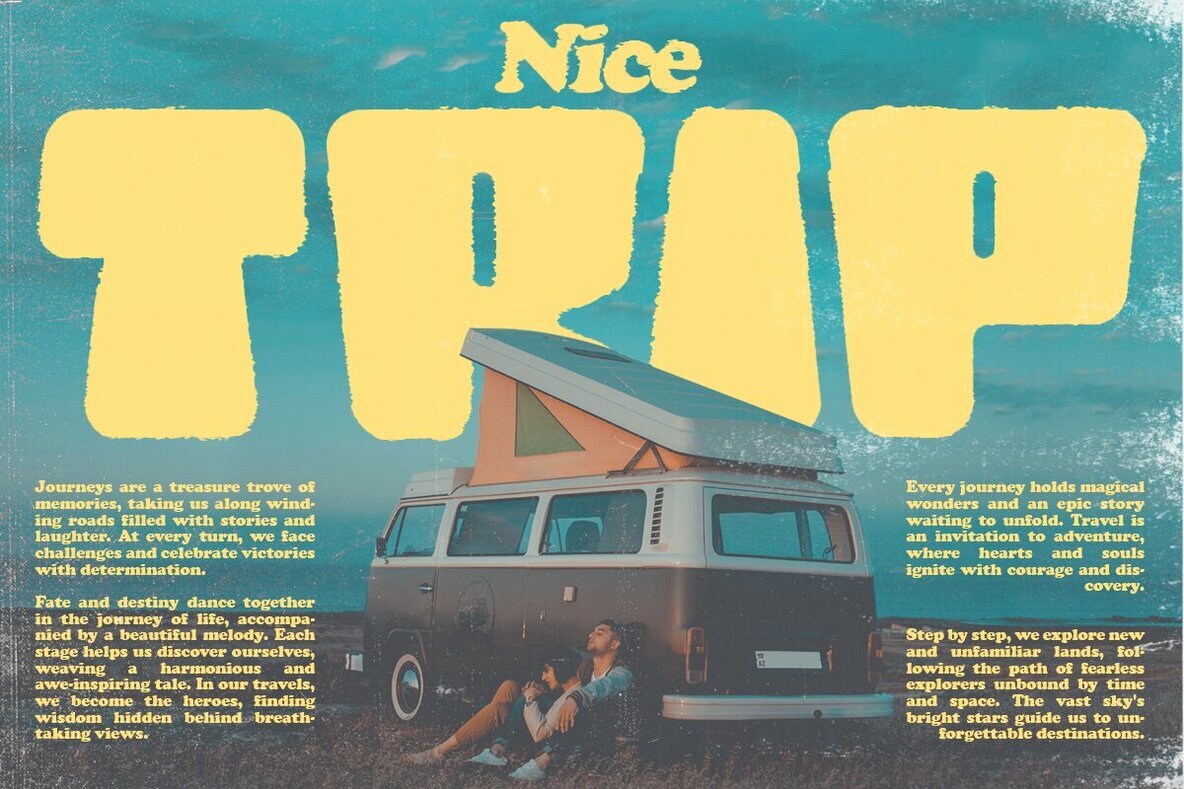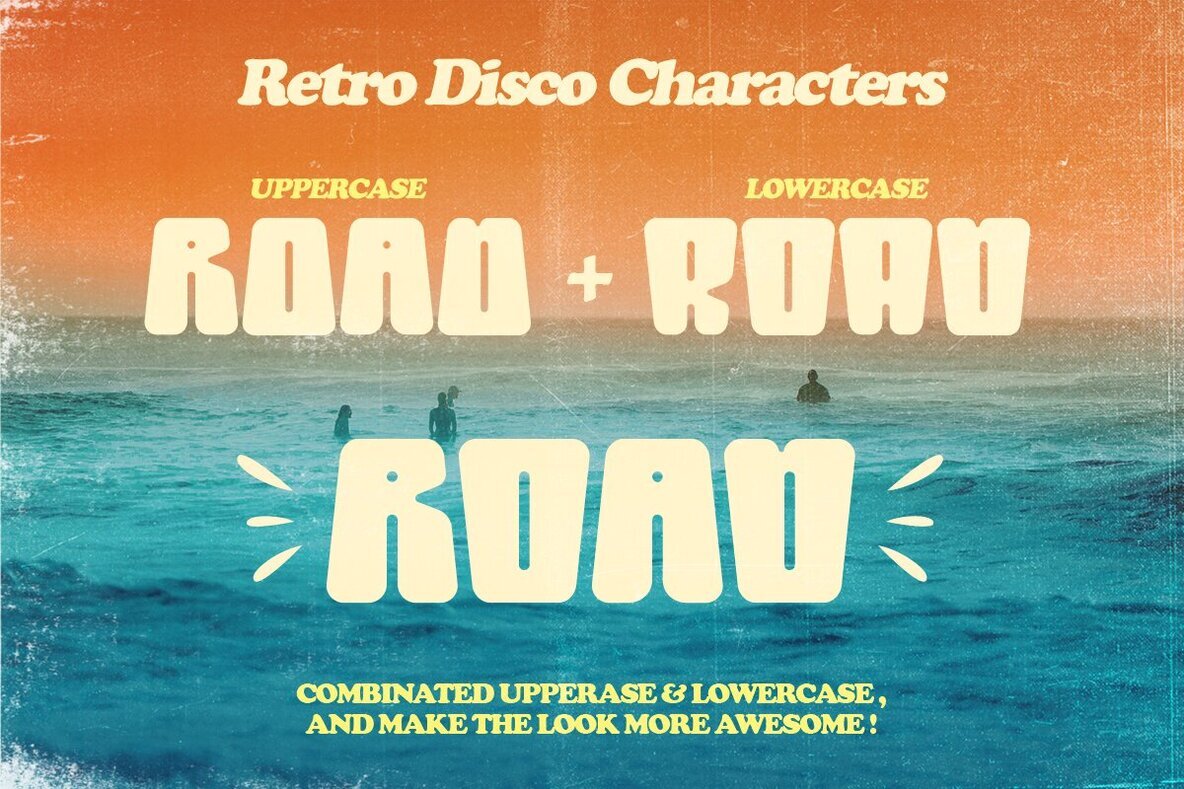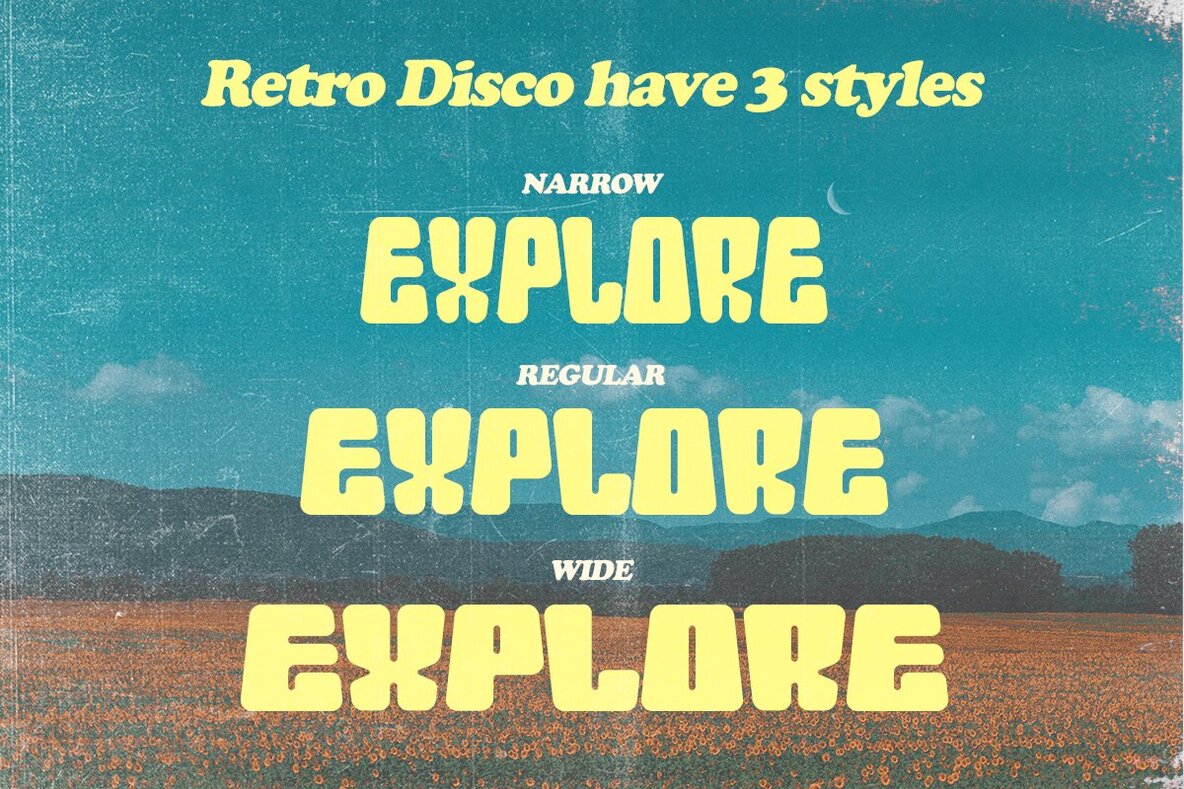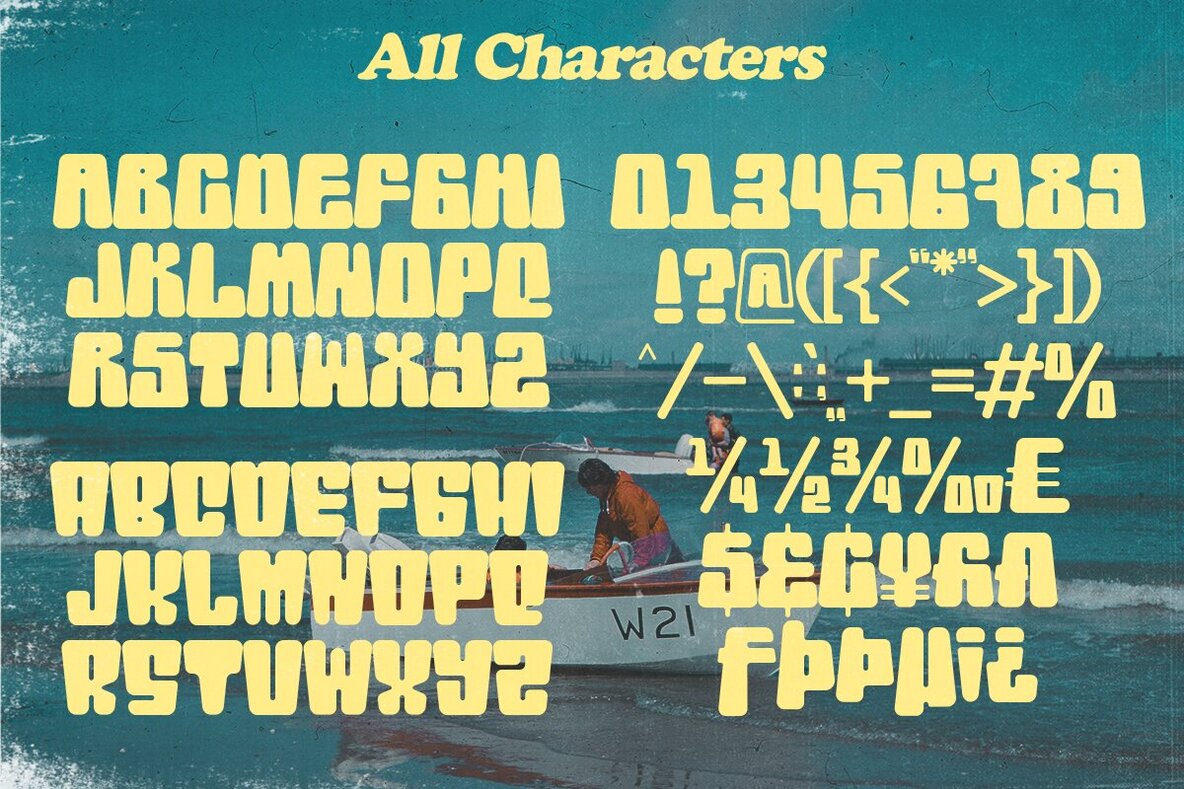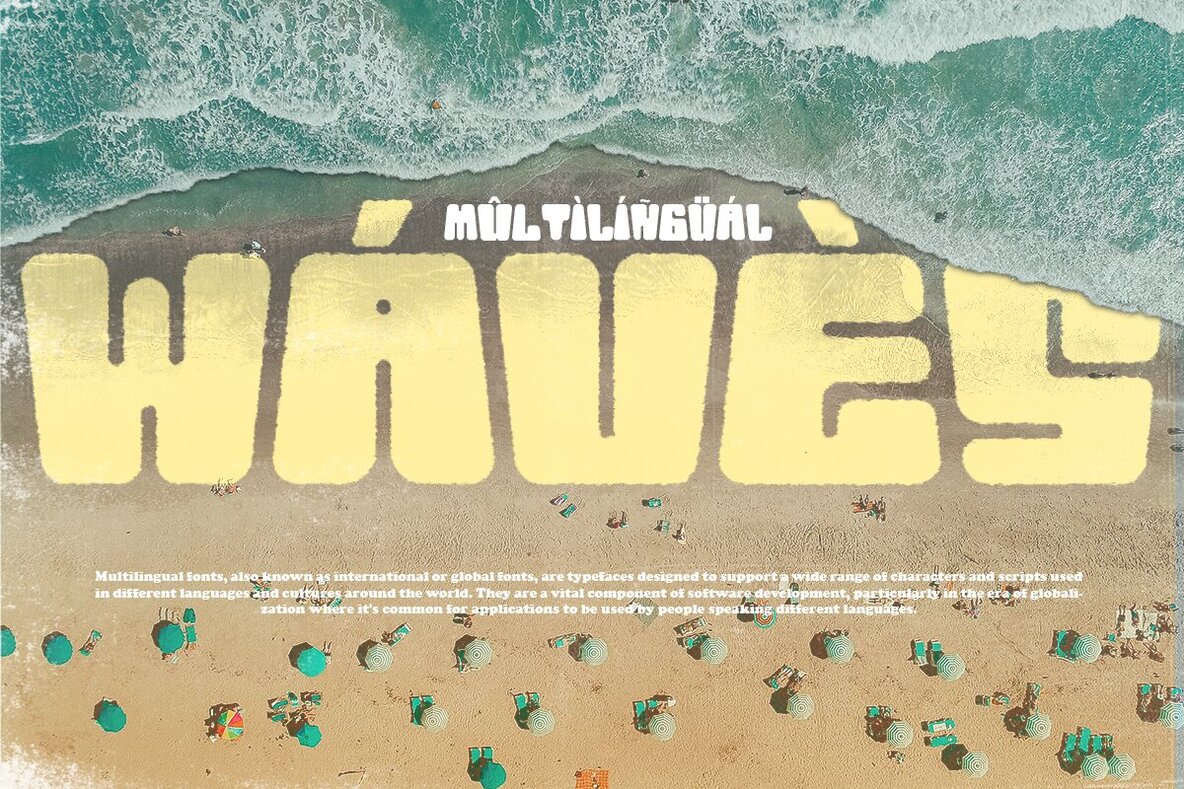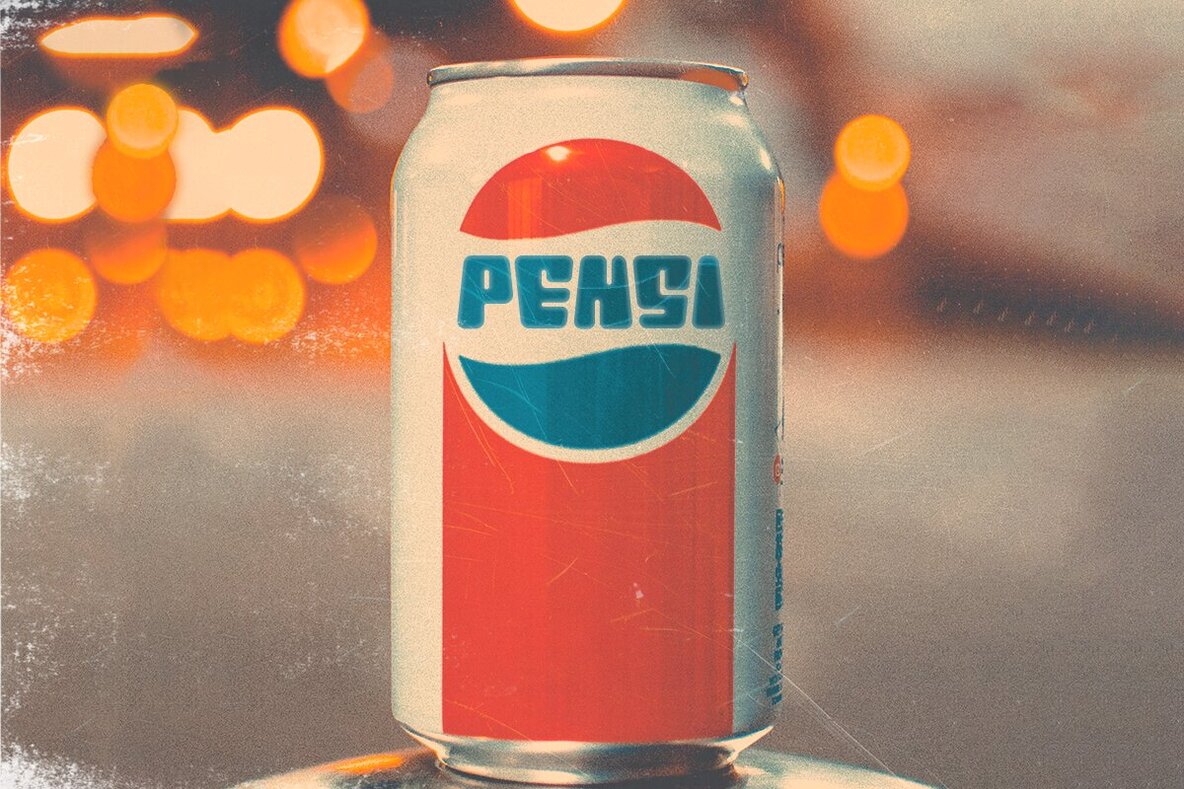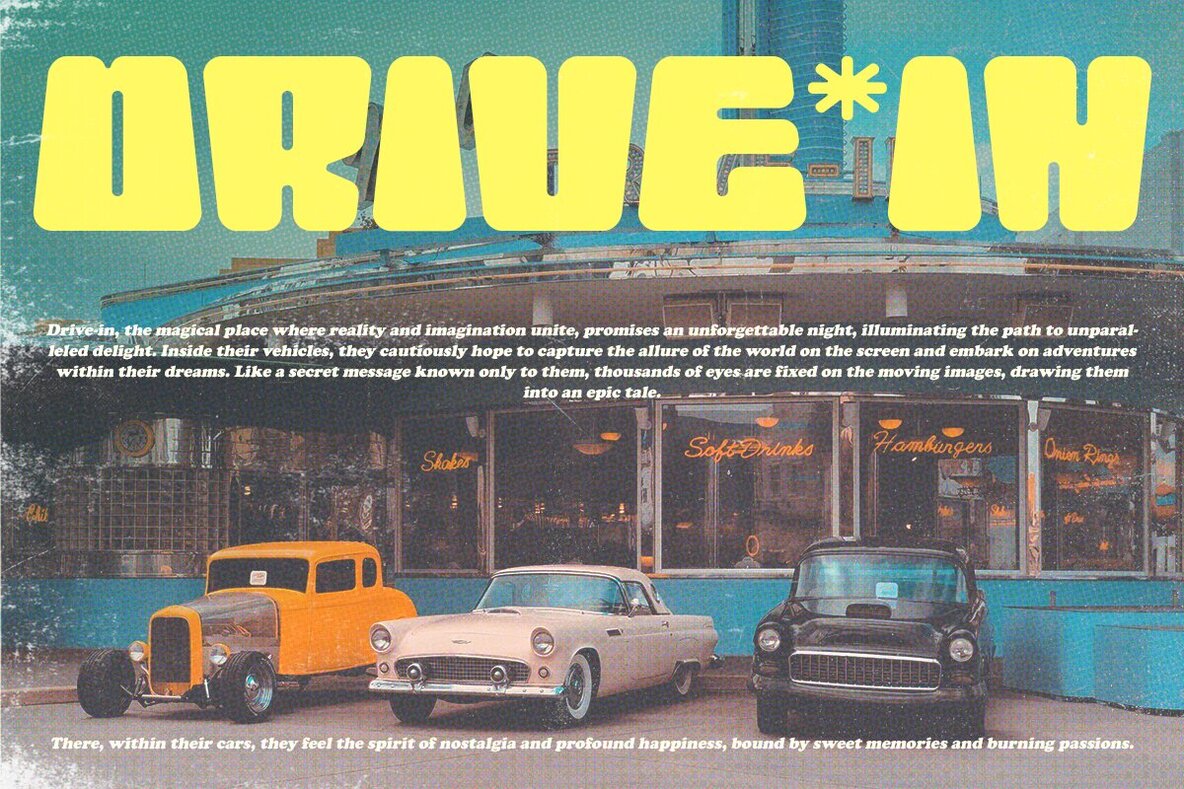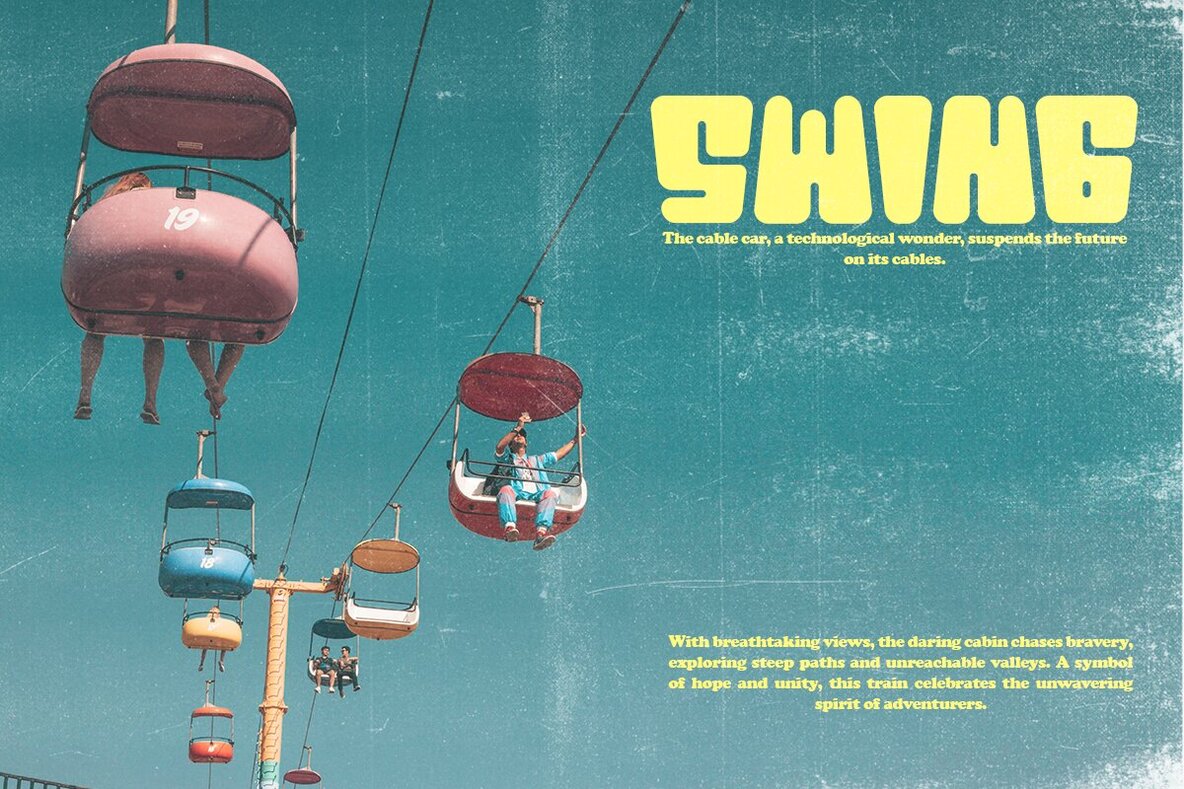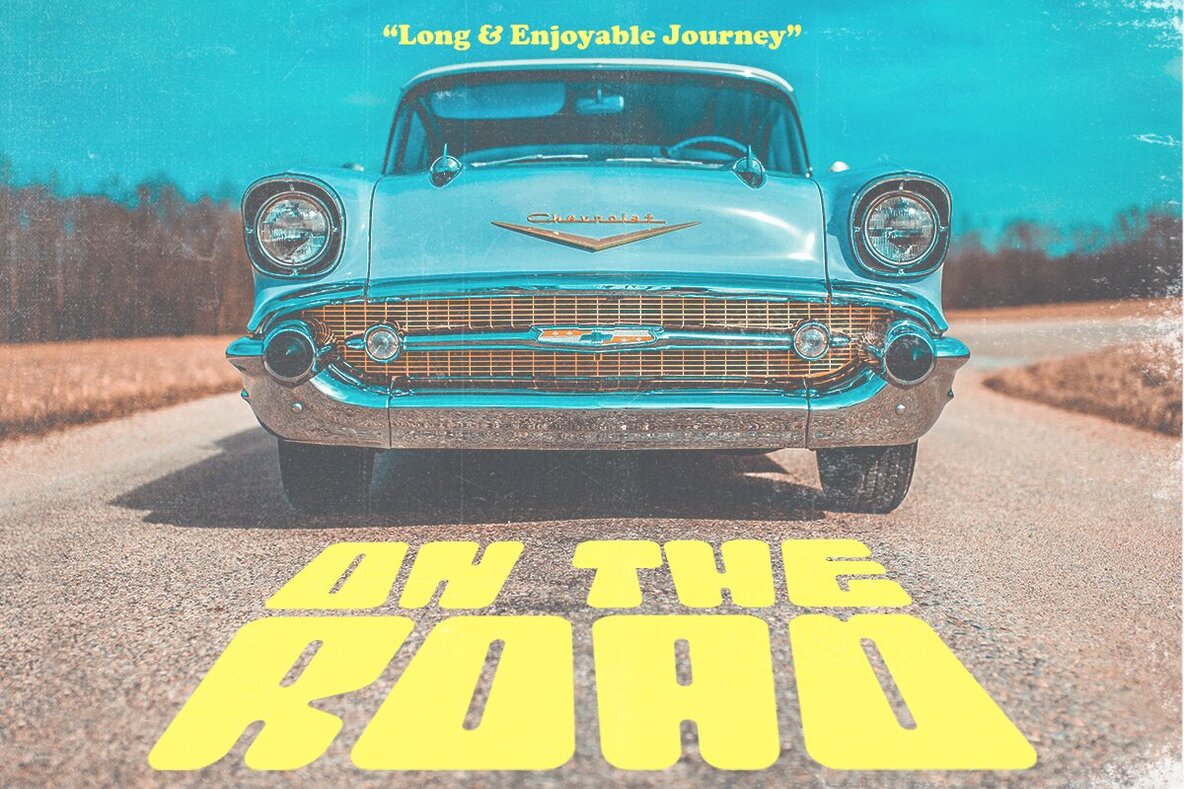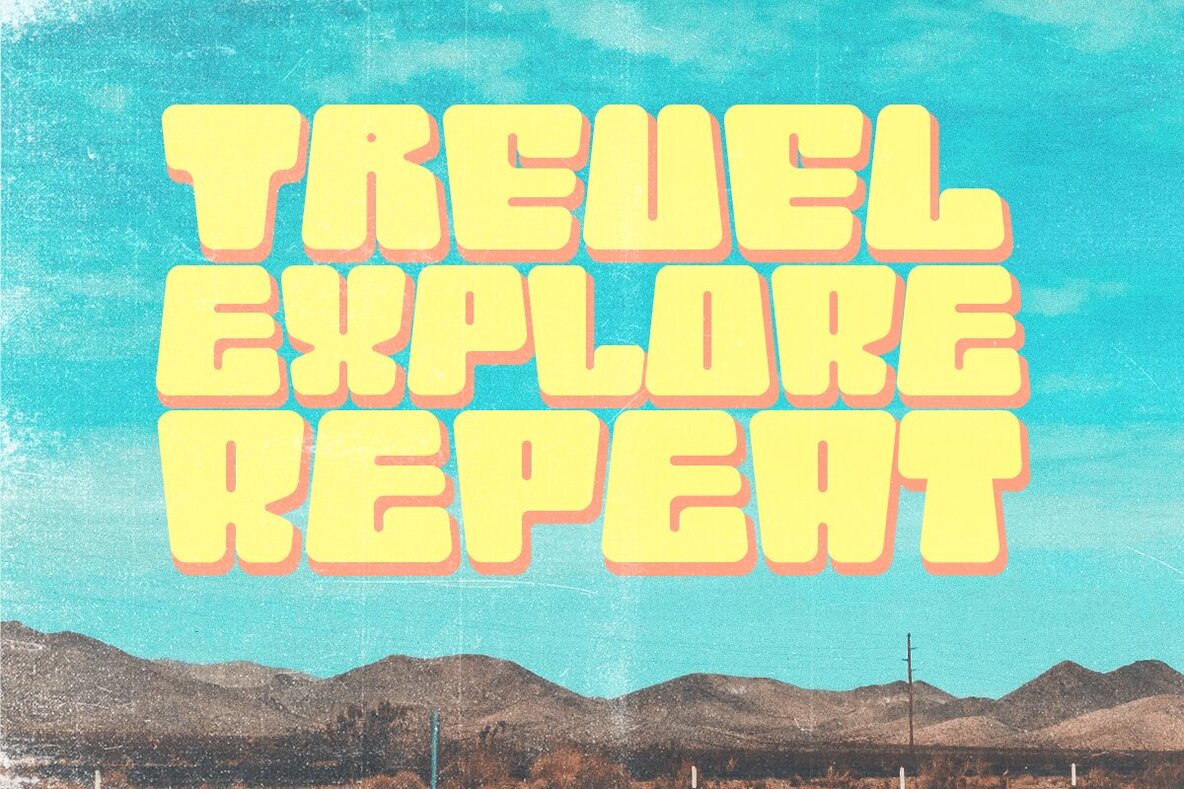
Retro Disco Font
Get ready to groove with our latest creation, RETRO DISCO font! RETRO DISCO brings the perfect blend of quirky boldness and unique letterforms, adding a dash of playfulness to your designs. With RETRO DISCO, the fun doesn't stop! You can easily play around with its uppercase and lowercase modes to find the perfect fit for any form you desire. But that's not all – we've taken it up a notch by offering 3 widths for each type: Narrow, Regular, and Wide! So no matter the project, this font is here to serve your creative needs. Features: